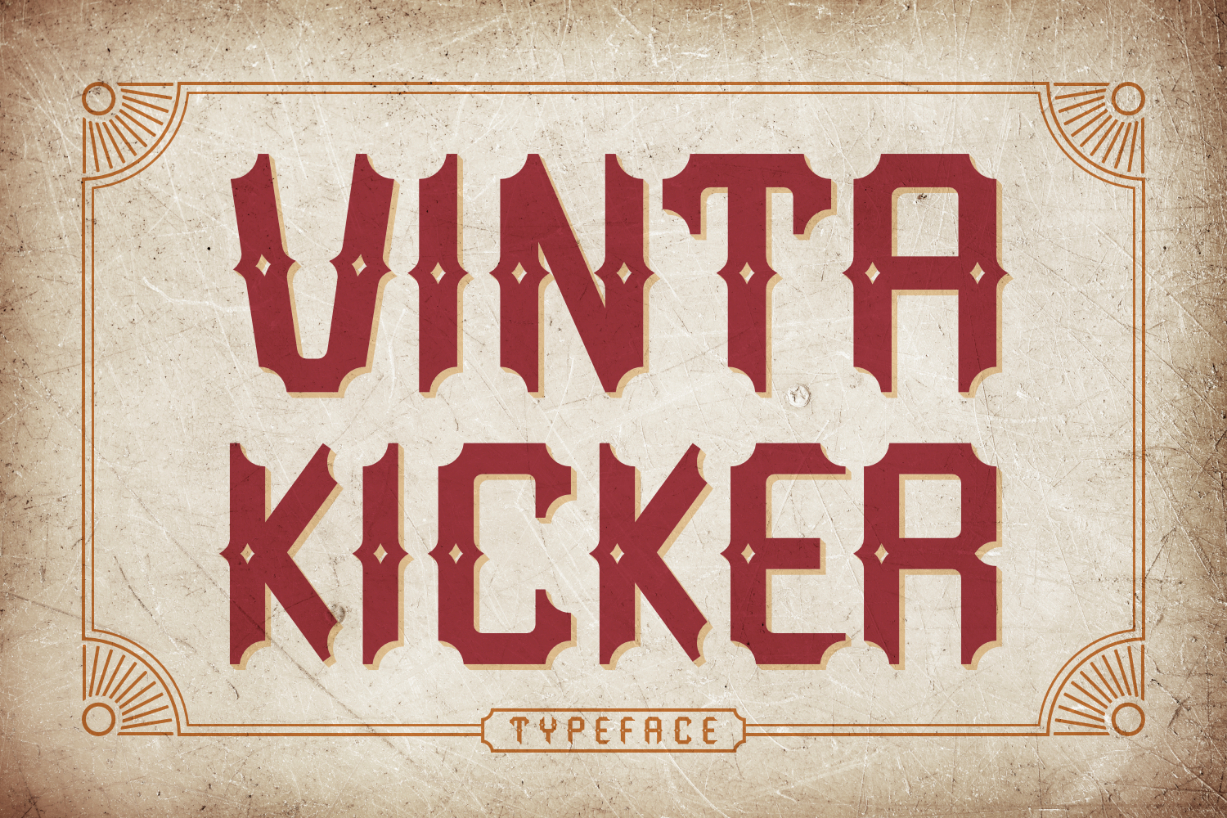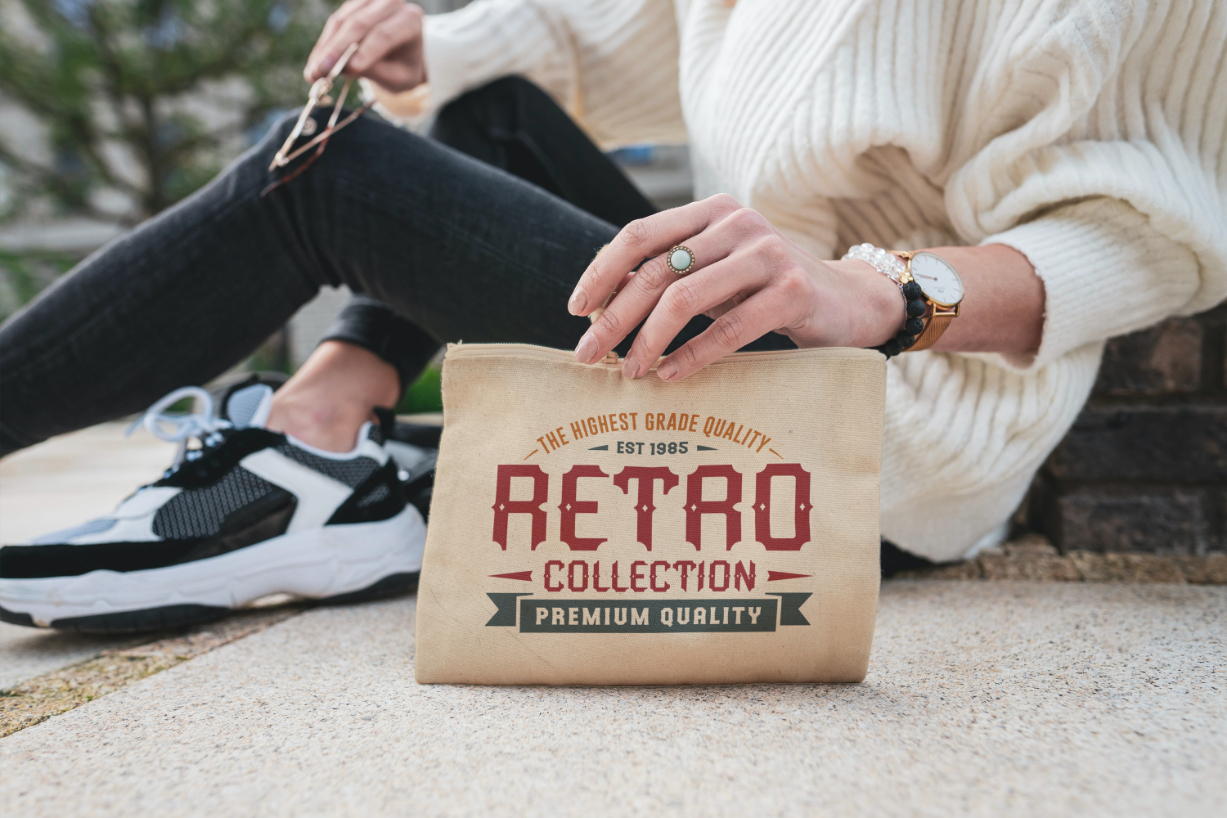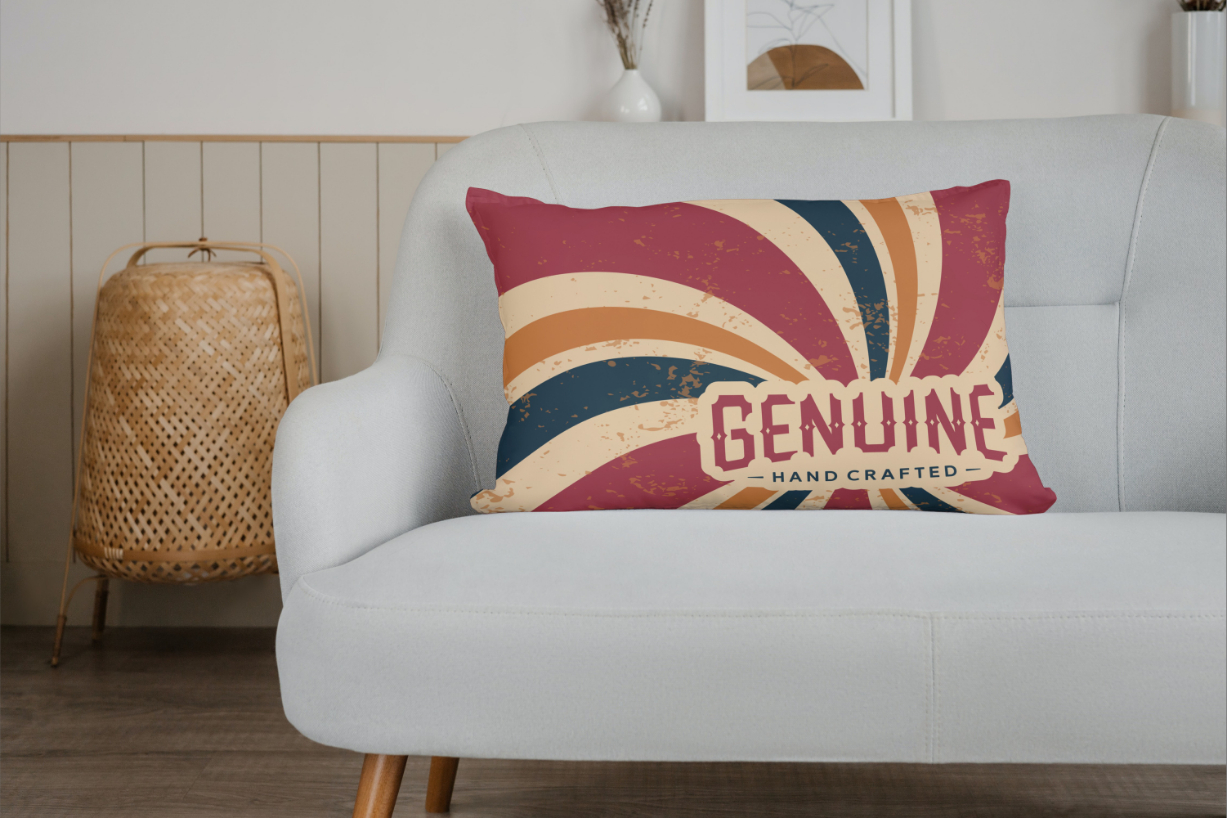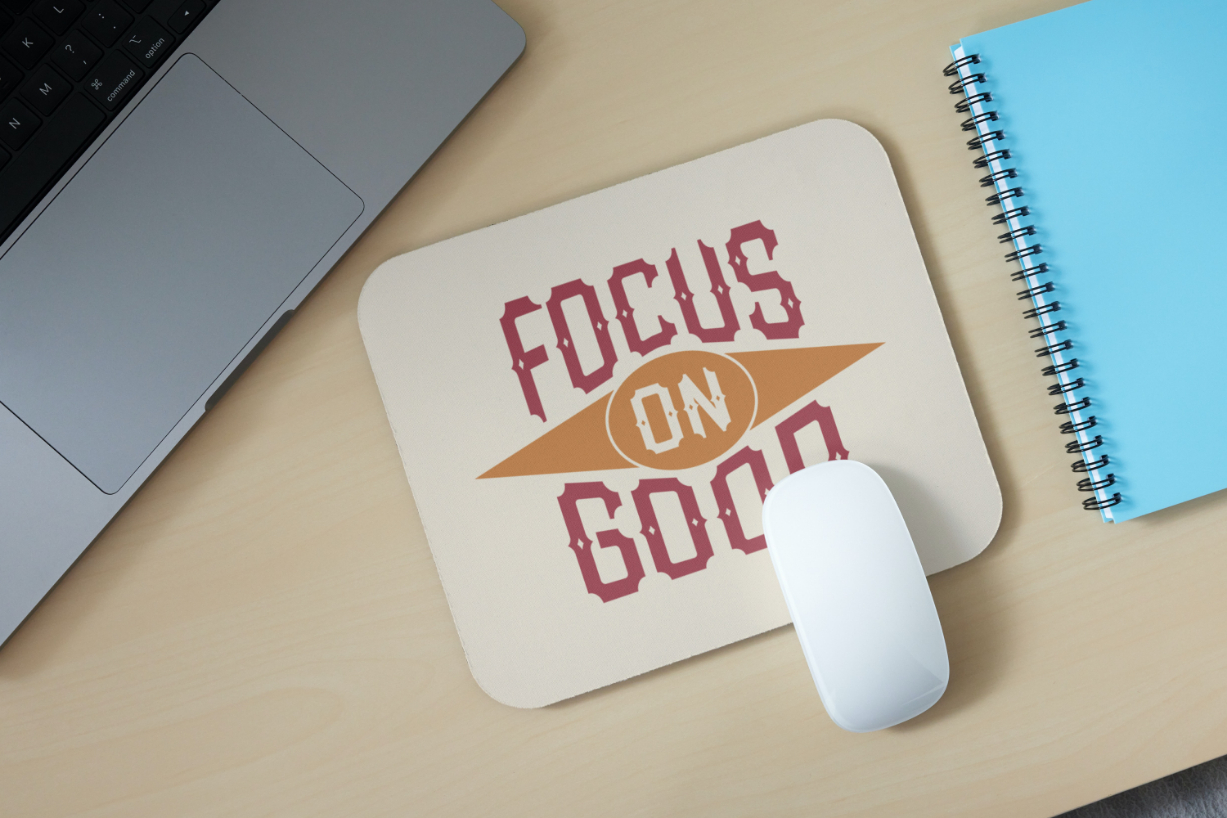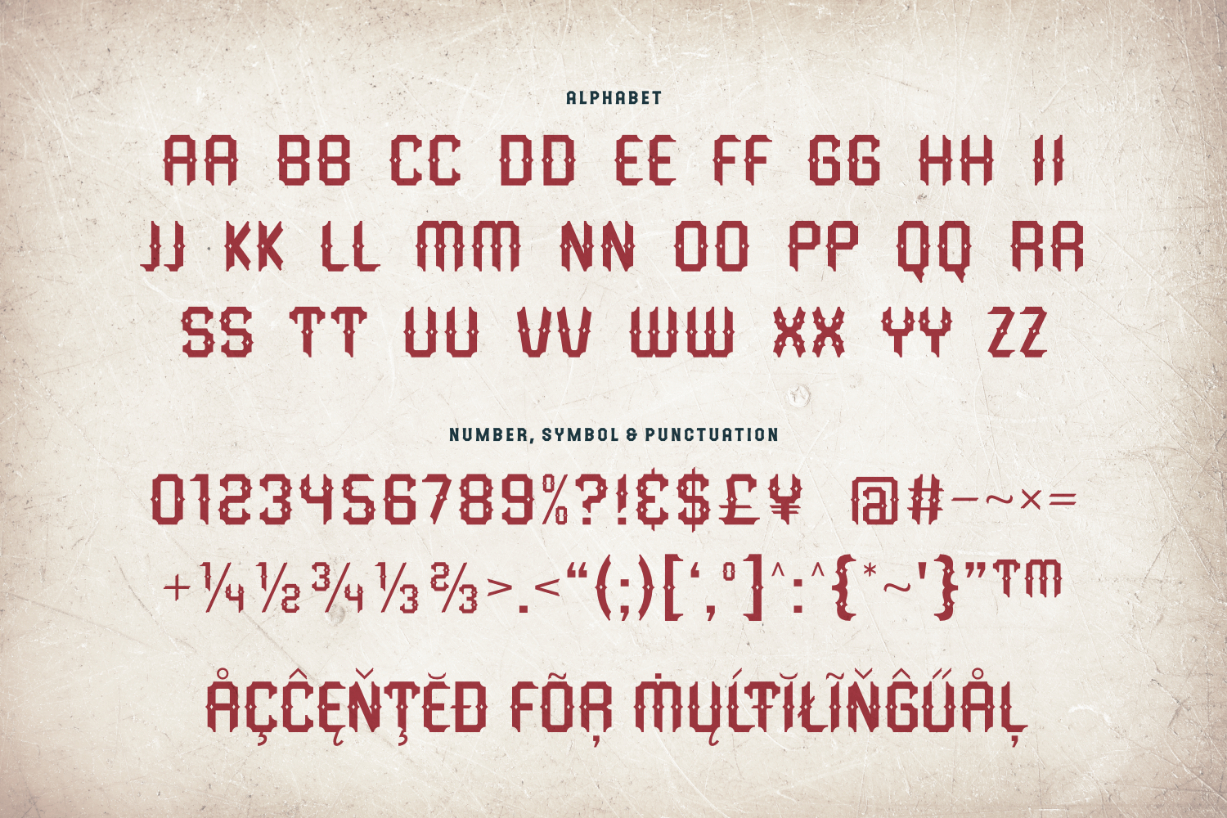
Vinta Kicker Font
About Vinta Kicker Font
Vinta Kicker is a stylish, retro blackletter display font. If you’re looking for a vintage touch for your designs, this font will be the perfect choice!